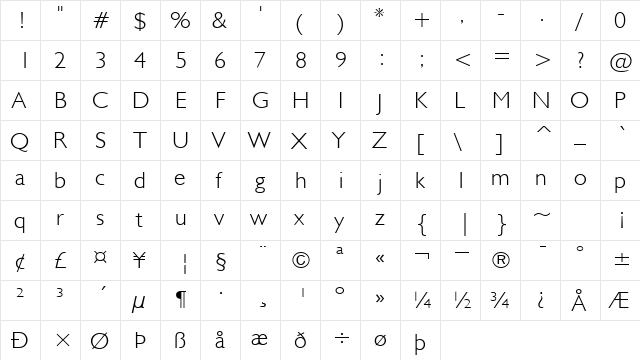
Gilsans Light FC Normal
Design Context for Gilsans Light FC Typeface
Gilsans Light FC takes a measured approach to typography — its balanced proportions and neutral character make it a reliable workhorse for both digital and print work. The delicate stroke weight brings airiness and refinement to layouts.
Pro Tip: Use Gilsans Light FC in both headline and body roles to test its range before committing to a single application.